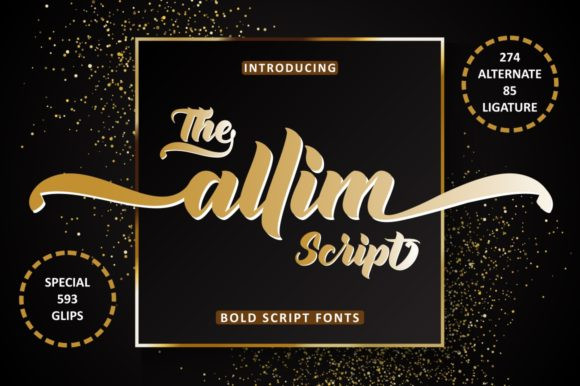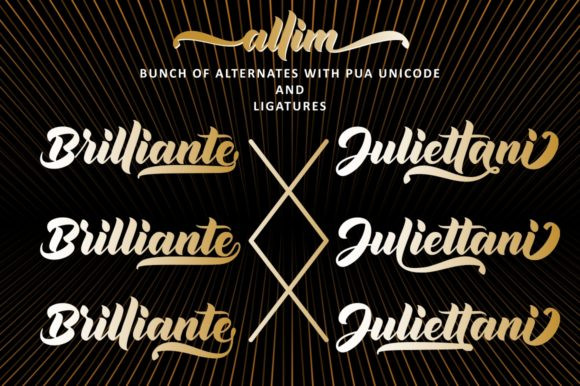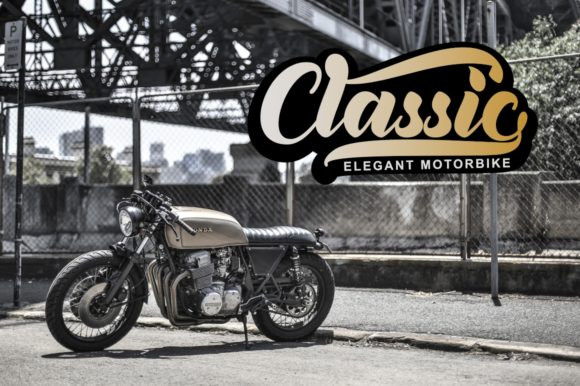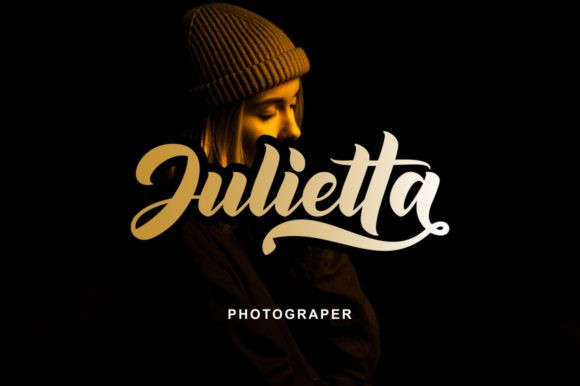
Allim Bold Script Font
Thank you for looking Allim Font. A Lovely Script font with a calligraphy style, casual and dynamic with a dancing baseline, This font can be used easily and simply. It’s designed and shared by ahmadrofingi97. It’s an equally sweet and cool script with a bold vibe. Get inspired by its unique charm! With modern script style this font will perfect for many different project ex: photography, watermark, quotes, blog header, poster, wedding, branding, logo, fashion, apparel, letter, invitation, stationery, etc.